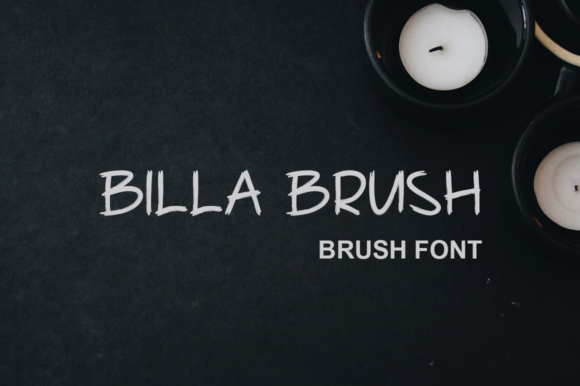
Behold, the exquisite Billa Brush Font, a masterful creation by Tychitype, designed to ignite your imagination and elevate your design endeavors. Prepare to be captivated by its enchanting, handwritten strokes, crafted with meticulous precision to add a touch of elegance and authenticity to your projects.
Picture yourself crafting stunning quote posters that radiate inspiration and artistic charm. The Billa Brush Font becomes your muse, transforming ordinary words into captivating masterpieces. Let your creativity flow freely as you explore endless possibilities, using this font to create eye-catching social media graphics, stylish branding elements, or heartfelt greeting cards that resonate with genuine emotion.
Imagine the allure of wedding invitations adorned with the Billa Brush Font, where each letter dances gracefully, conveying both the joy and commitment of the special occasion. Or envision your business cards exuding professionalism and sophistication, making a lasting impression on potential clients. This font possesses the versatility to adapt seamlessly to a symphony of creative projects, amplifying their impact and leaving an indelible mark.
With Billa Brush Font as your creative companion, unlock a world of possibilities. Experience the joy of designing logos that embody the essence of your brand, invoking curiosity and fostering connections. Craft enchanting book covers that lure readers into captivating tales, transporting them to realms of wonder and imagination. Embrace the boundless potential of Billa Brush Font as it elevates your designs, making them shine brighter than ever before.
The moment you lay your eyes upon Billa Brush Font, you'll realize it's more than just a collection of letters; it's an open door to a world of creative freedom. Its strokes ignite passion, inspire innovation, and breathe life into your design visions. Don't let this opportunity pass you by. Embrace the power of Billa Brush Font and embark on a creative journey that will leave you spellbound.